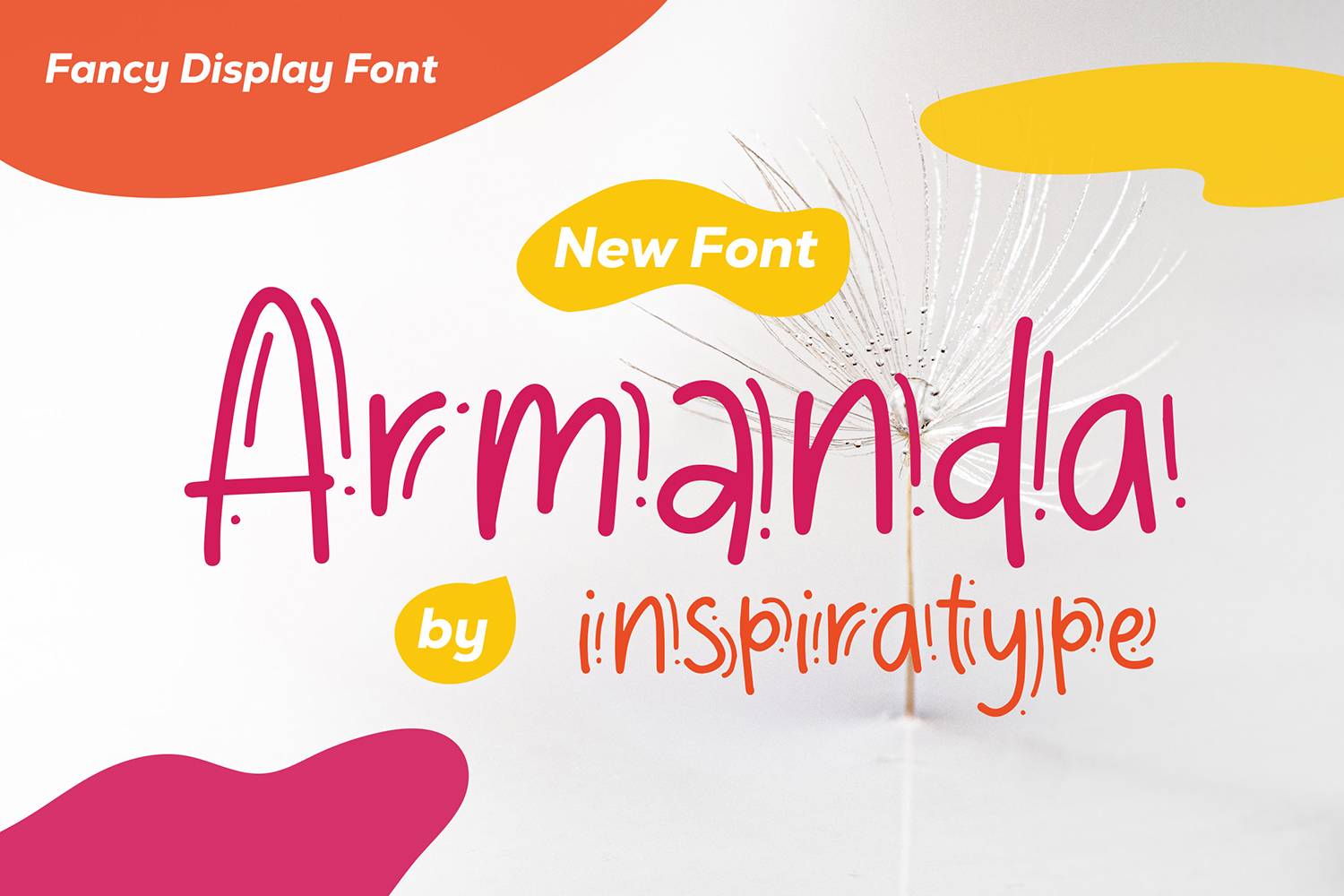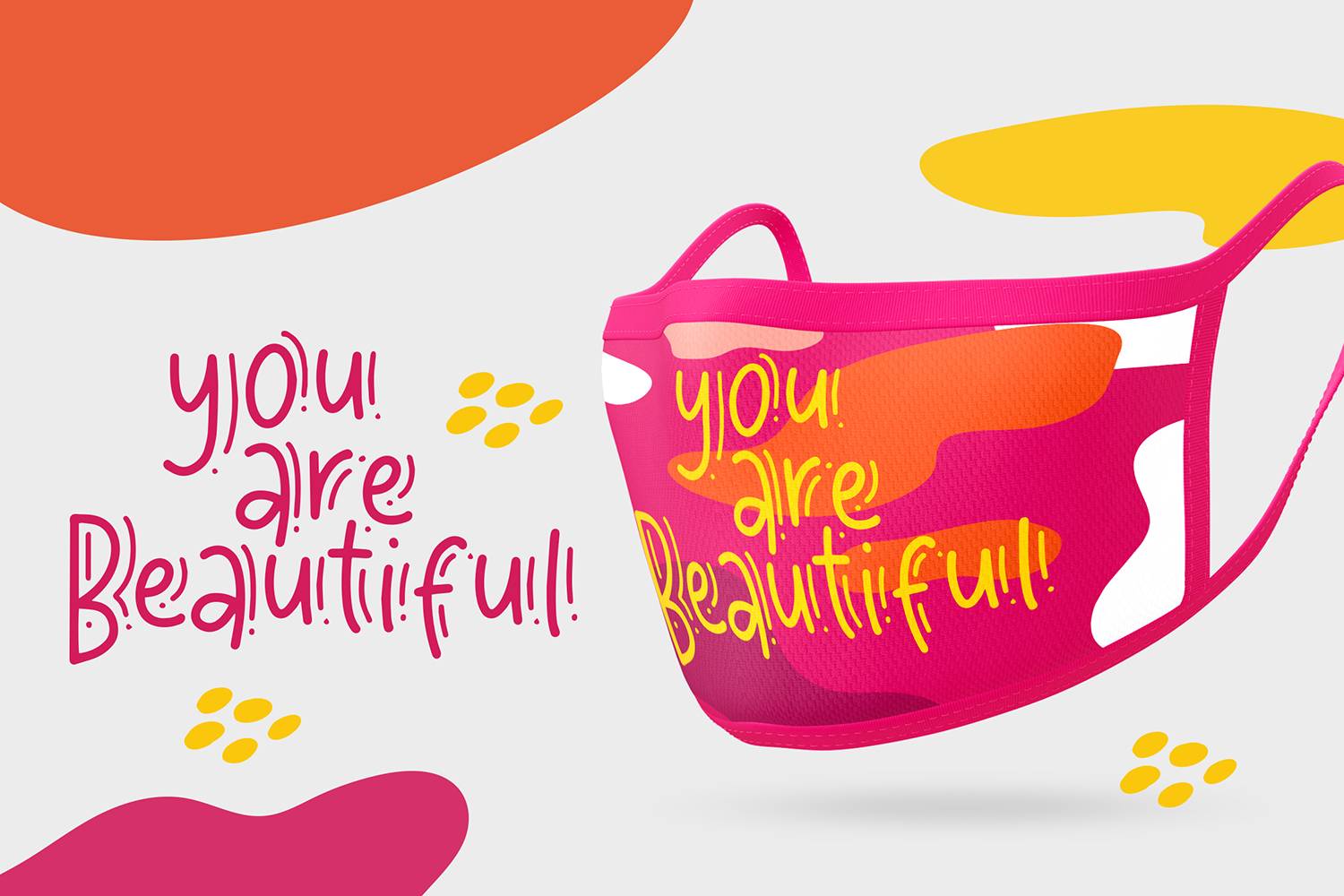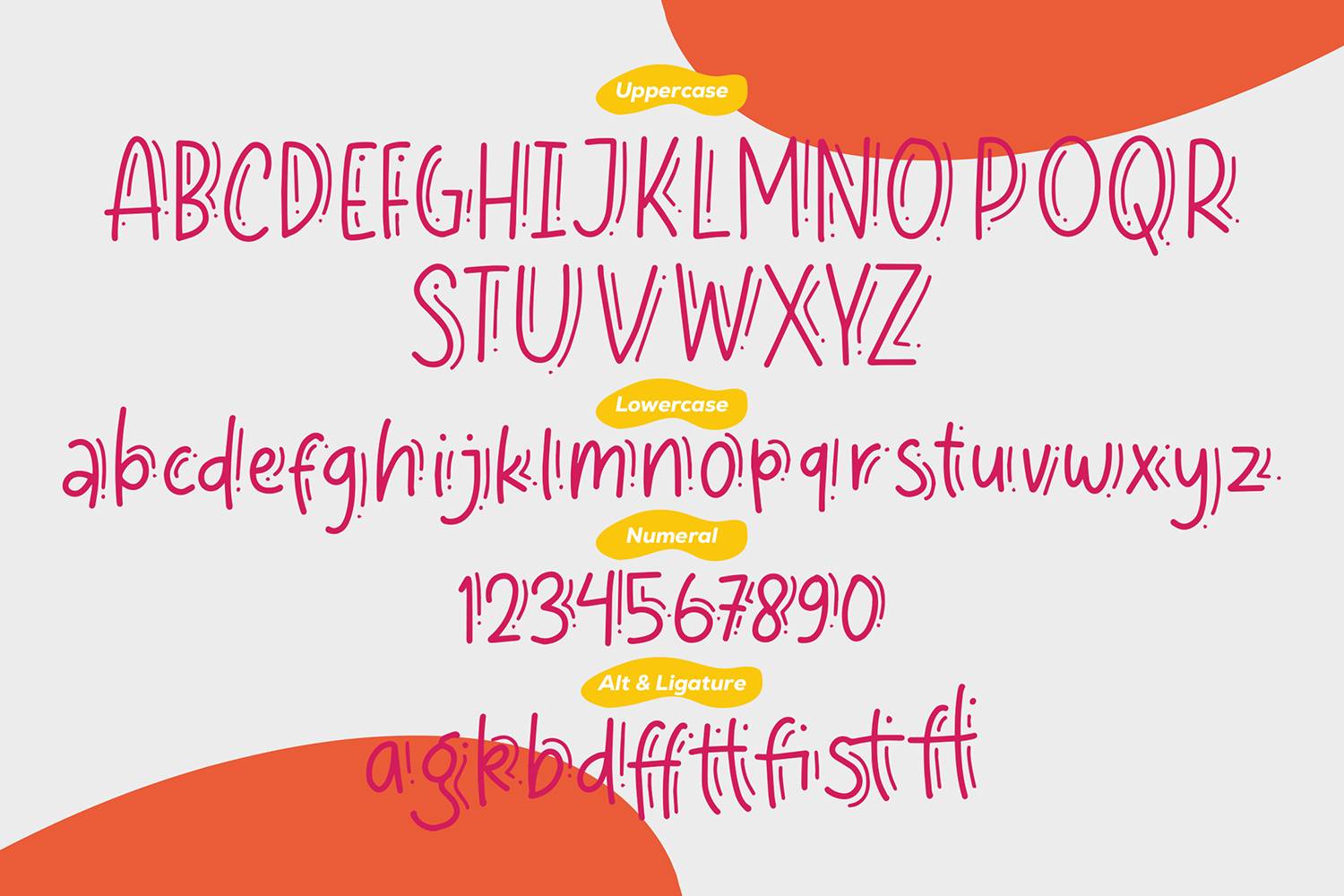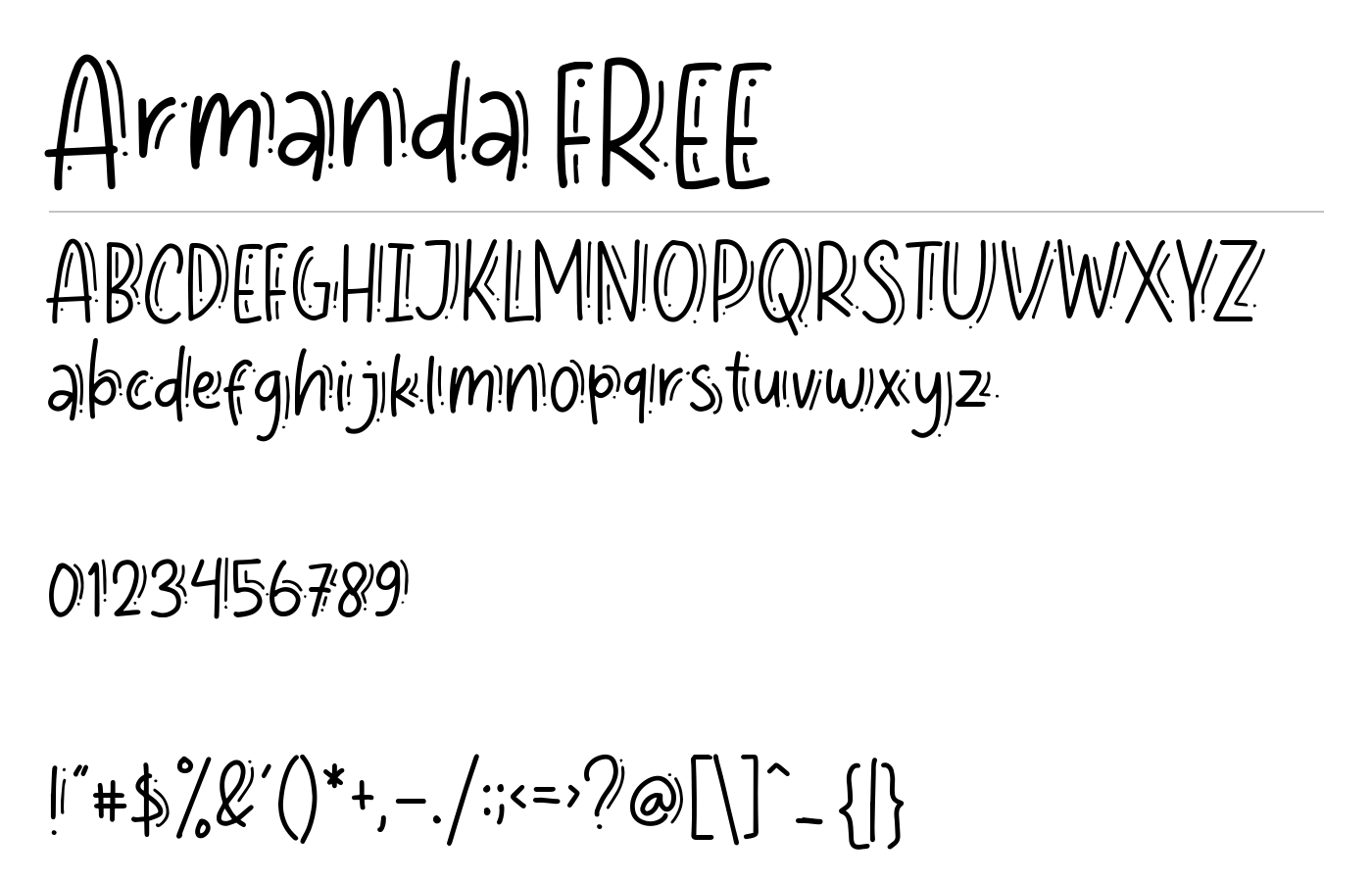
Armanda is a playful, hand-drawn sans serif font characterized by its tall, narrow letterforms and whimsical uneven strokes, giving it a casual, friendly vibe. Its lightweight and slightly quirky style make it a great choice for creative projects like children’s books, informal branding, or fun posters where a touch of personality and warmth is desired. This font works best in headlines or short texts where its unique charm can shine without sacrificing readability.
| Font family | Armanda Font |
| Designer | Inspiratype |